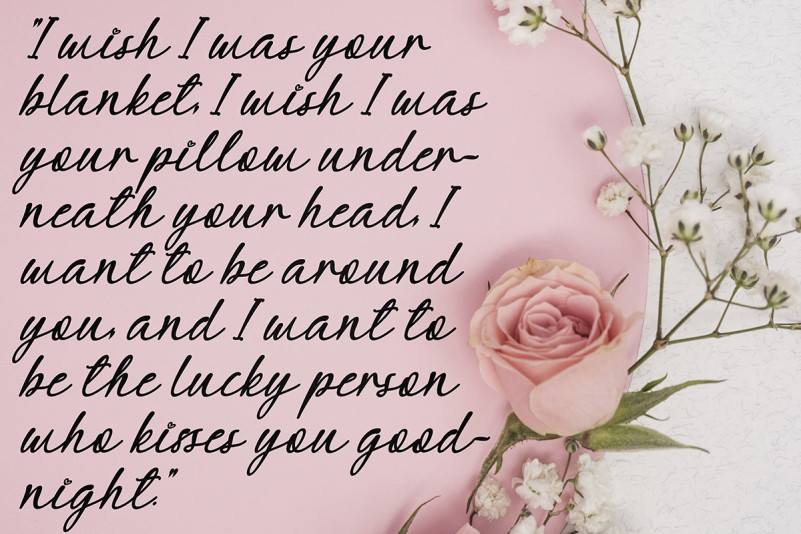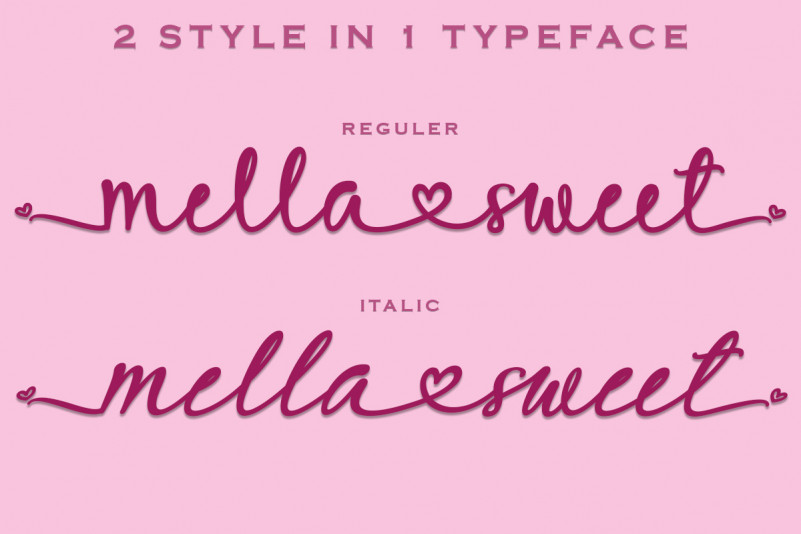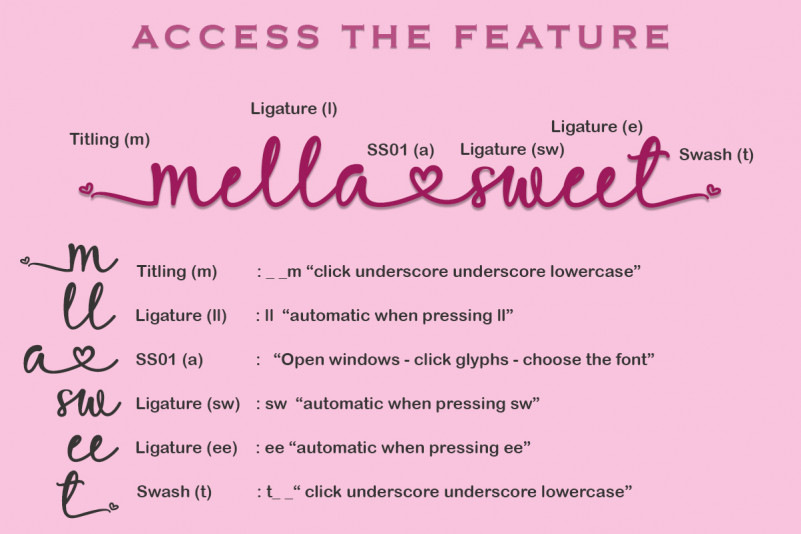
Mella Sweet Script Font
This is a very pretty, elegant and unique font with love embellishments which is very easy to use. This font is a modern handwritten script font. “Mella Sweet” is perfect for all your work. This font is equipped with a unique and attractive love decoration. So that it can be used for spring, summer, mother’s day, father’s day, valentine’s, romantic moments, holidays, traveling, weddings, potography, promotions, business, social media, quotes, or others.